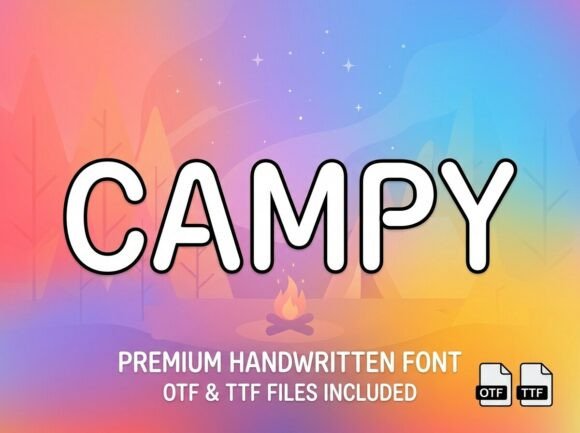
The Ultimate Guide to Campy Font: Elevate Your Designs with a Stunning Display Font
I’ll never forget the design project that led me to discover Campy Font. I was working on a branding campaign for a trendy boutique hotel, and I needed a font that would make their headlines pop. After hours of scrolling through font libraries, I stumbled upon Campy Font, and it was love at first sight! ✨ The unique artistic elements and strong visual personality immediately caught my attention. In this article, I’ll share my experience with Campy Font, its features, and how to make the most of it in your designs.
An Honest Review of Campy Font
So, what makes Campy Font special? Here are the things I love:
- ✅ Unique artistic elements that add a touch of personality to your designs
- ✨ Strong visual personality that’s perfect for making a statement
- ✅ Versatile enough for bold headlines, artistic logos, and creative packaging
- ✅ Maintains a professional and polished finish
However, there are a few quirks to be aware of:
- ⚠️ Campy Font is an ALL-CAPS (Uppercase Only) display typeface, which means it doesn’t include lowercase letters.
- 🤔 This font is specifically designed for high-impact headlines, logos, and decorative initials, so it might not be the best choice for body text or lengthy paragraphs.
- Explore the OpenType features, such as glyphs and stylistic alternates, to add more personality to your design.
The Story Behind Campy Font
Campy Font was designed by a team of creatives who wanted to create a font that would add a touch of personality to designs. Inspired by the world of art and fashion, they crafted a font that’s both bold and beautiful. The result is a stunning display font that’s perfect for making a statement.
| Font Name | Campy Font |
| Author | Angel_Srapix |
| Is Campy Font suitable for body text? | No, Campy Font is designed for high-impact headlines, logos, and decorative initials. It’s not recommended for body text or lengthy paragraphs. |